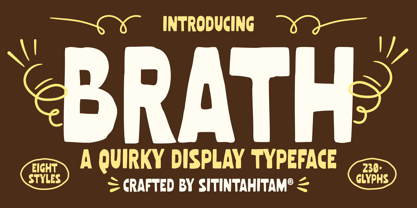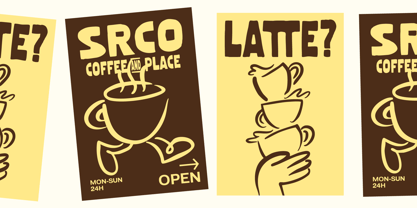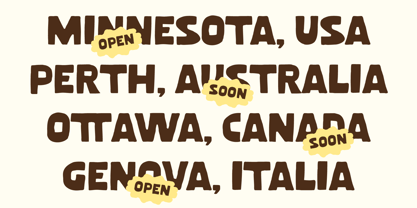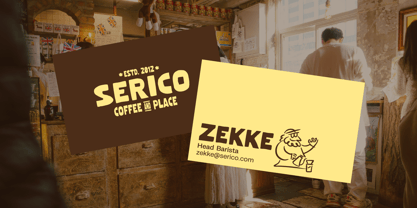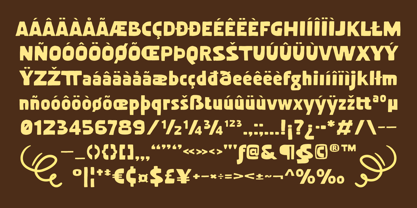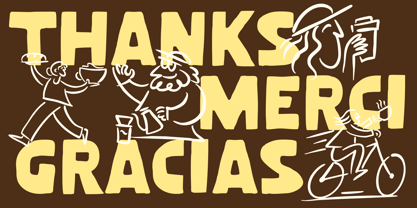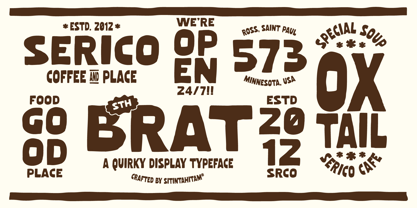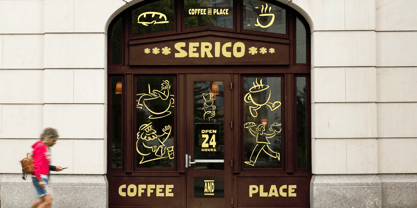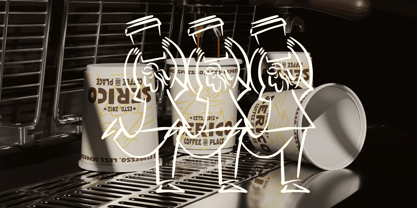
STH Brath
von Sitintahitam
Die Schriftfamilie STH Brath wurde von Hasto Nugroho entworfen und von Sitintahitam veröffentlicht. STH Brath enthält 8 Stile und Familienpaketoptionen.
STH Brath is a quirky display typeface inspired from urban society. STH Brat comes with bold, bouncy, and hand-drawn feels. This typeface have a 8 styles you can mix and match to your mood. Suitable for any graphic designs such as branding materials, print, logo, poster, packaging .etc
Designer: Hasto Nugroho
Herausgeber: Sitintahitam
Foundry: Sitintahitam